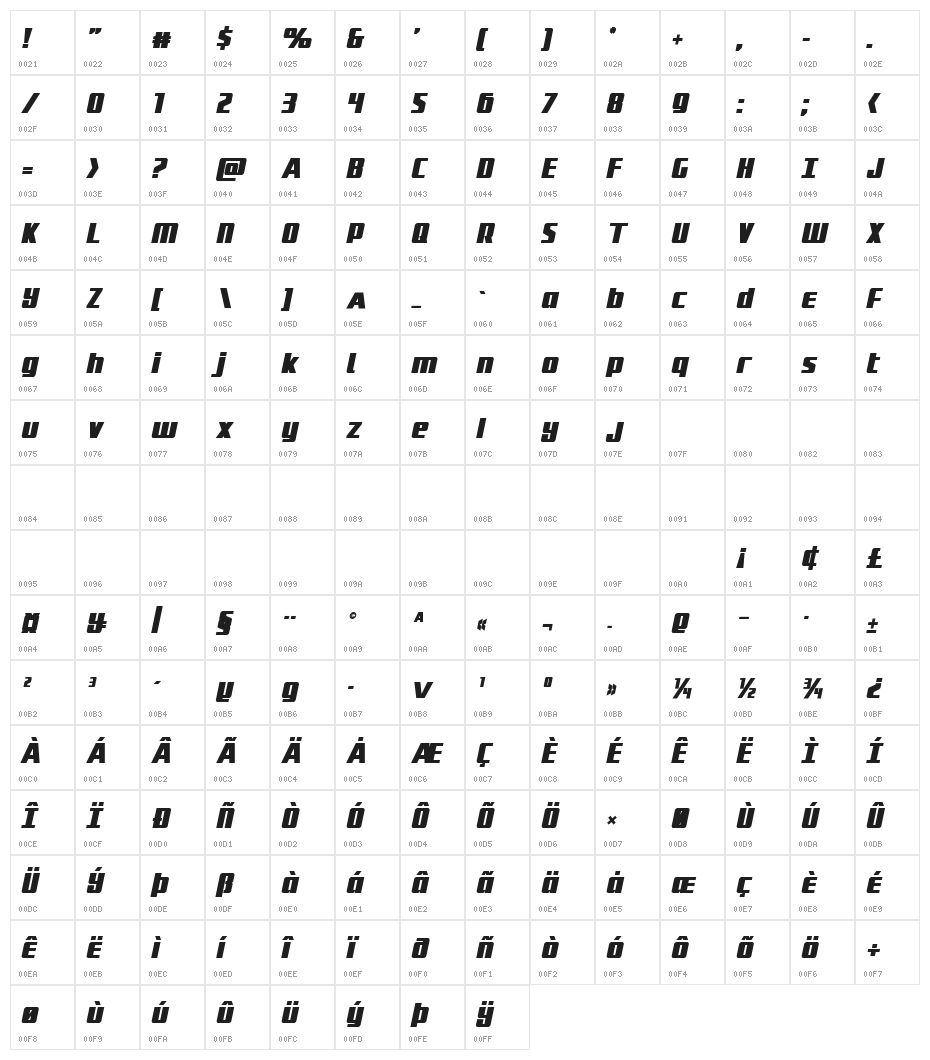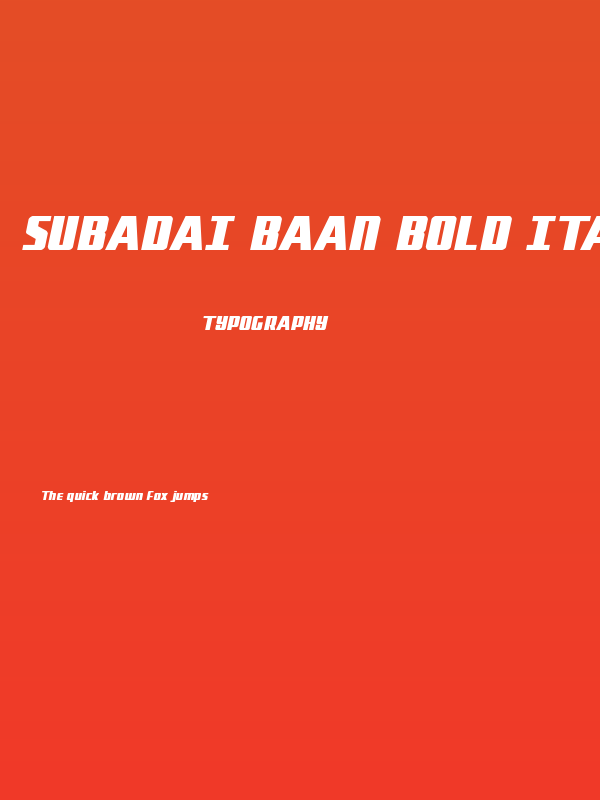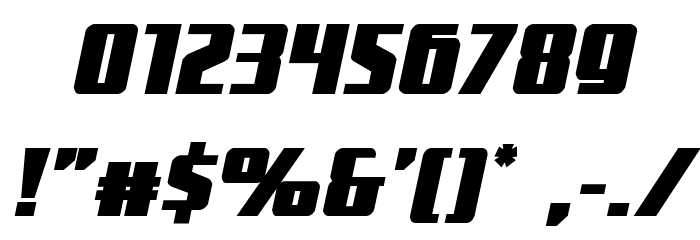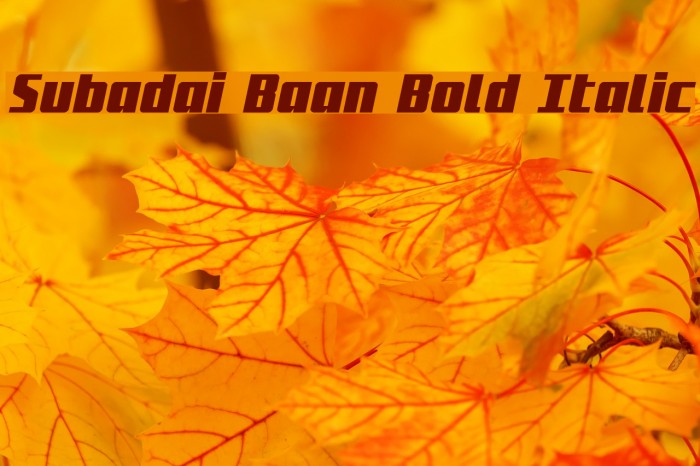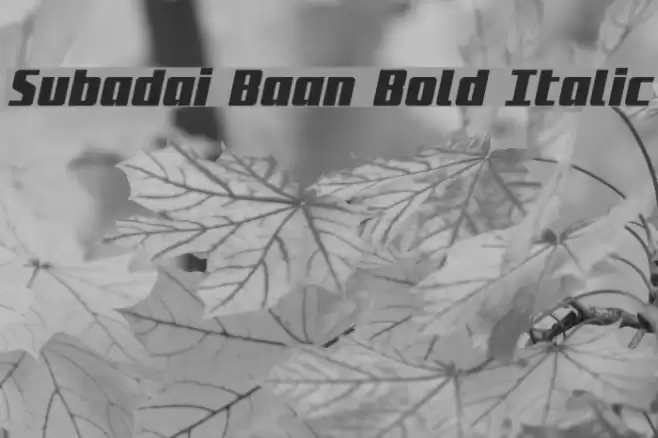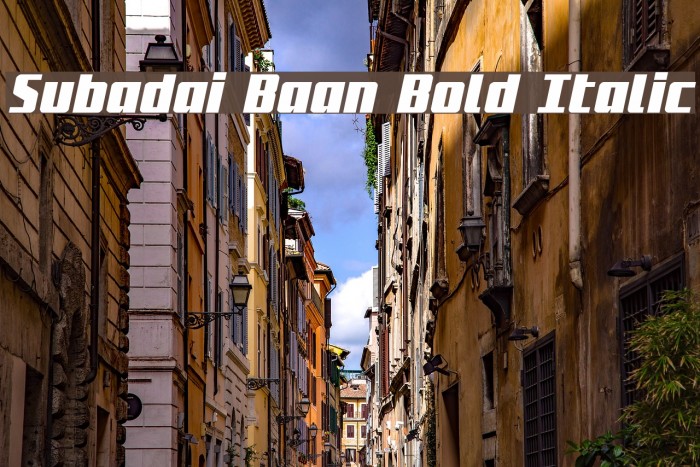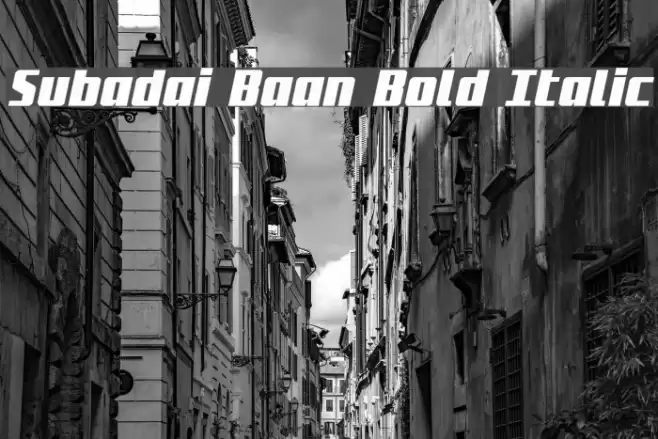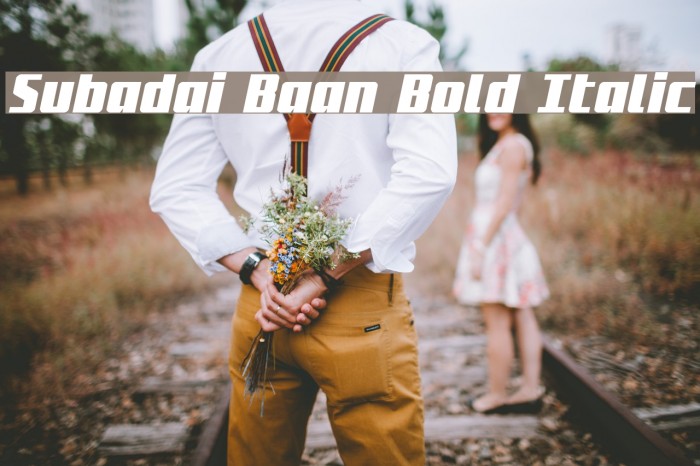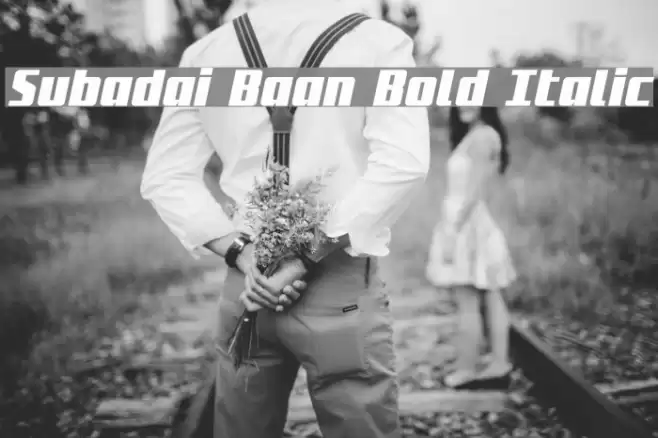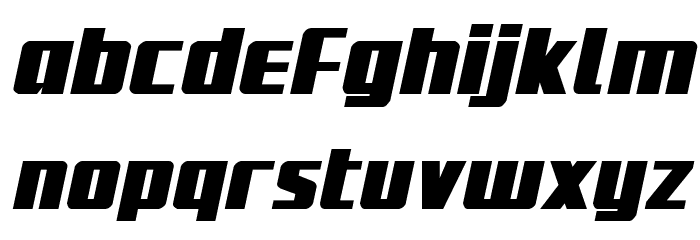
Subadai Baan Bold Italic Font
Subadai Baan Bold Italic Description
This font features a bold and italicized style with a modern, dynamic appearance. The characters are slightly slanted, giving a sense of motion and energy. The strokes are thick and consistent, providing a strong visual impact. The uppercase and lowercase letters maintain a uniform width, contributing to a cohesive look. The numerals and special characters are designed to match the boldness of the alphabet, ensuring readability and style consistency across all text elements. This font is ideal for projects that require a bold statement and a contemporary feel.
| Use Case | Headlines, Logos, Branding |
| Proposed Projects | Ideal for branding, advertising, headlines, and sports-related designs. |